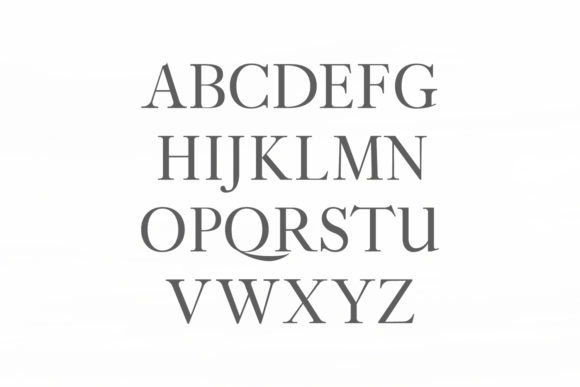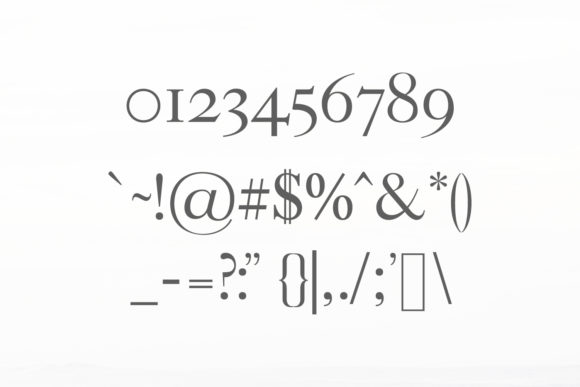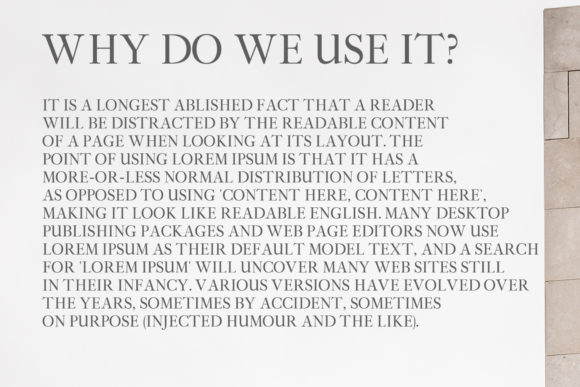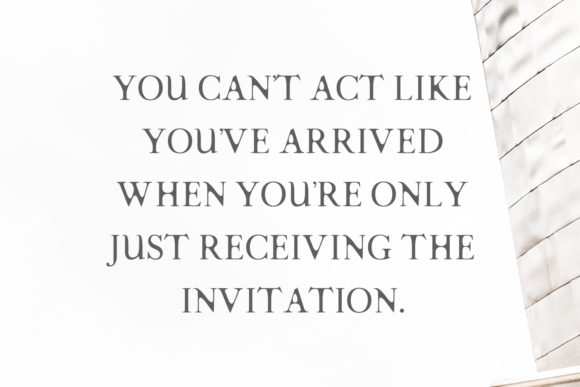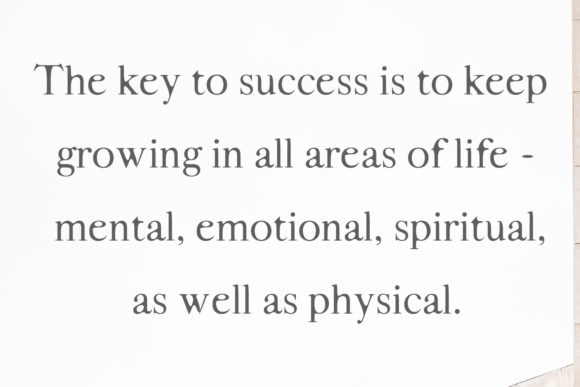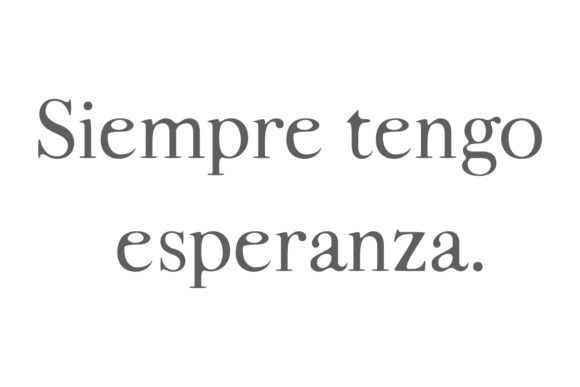
The Adallyn Family Font: A Modern Serif for Creative Designs
I’ll never forget the design project that led me to discover the Adallyn family font. I was working on a branding project for a new coffee shop, and I needed a font that was both modern and elegant. I had spent hours browsing through font libraries, but nothing seemed quite right. That was when I stumbled upon Adallyn, and it instantly clicked. The clean lines, the subtle serif details, and the range of variations – it was exactly what I needed to bring the brand to life.
- ✨ The Adallyn family font is incredibly versatile, with five variations to choose from, each with a modern look that’s perfect for a wide range of design projects.
- ✅ The font is highly legible, even at small sizes, making it ideal for body text and captions.
- ✅ The serif details add a touch of sophistication and elegance, perfect for headlines and titles.
- ✅ The font is well-suited for both digital and print designs, making it a great choice for designers who work across multiple platforms.
While Adallyn is an excellent font, there are a few things to keep in mind:
- ⚠️ Some of the variations may not be suitable for very small text sizes, as the serifs can become a bit lost.
- 🤔 The font doesn’t have a huge range of OpenType features, but it does include some useful stylistic alternates.
One of the standout features of Adallyn is its range of stylistic alternates and glyphs. These can be accessed through the OpenType panel in Adobe apps or through the font’s built-in features in other design software. Some of the features you can expect to find include:
- Alternate characters: Swashes, ligatures, and other decorative elements to add visual interest to your text.
- Stylistic sets: Pre-defined sets of characters that can be used to create a consistent look across your design.
- Glyphs: Additional characters and symbols that can be used to add texture and depth to your design.
The Story Behind Adallyn
The Adallyn family font was designed with the modern designer in mind. The creator wanted to craft a font that was both elegant and versatile, suitable for a wide range of design projects. The result is a font that’s perfect for headlines, posters, branding, packaging, and more.
Q: How many variations does Adallyn come in?
A: Adallyn comes in five variations, each with a unique take on the modern serif style.
Q: Is Adallyn suitable for body text?
A: Yes, Adallyn is highly legible and suitable for body text, making it a great choice for longer blocks of text.